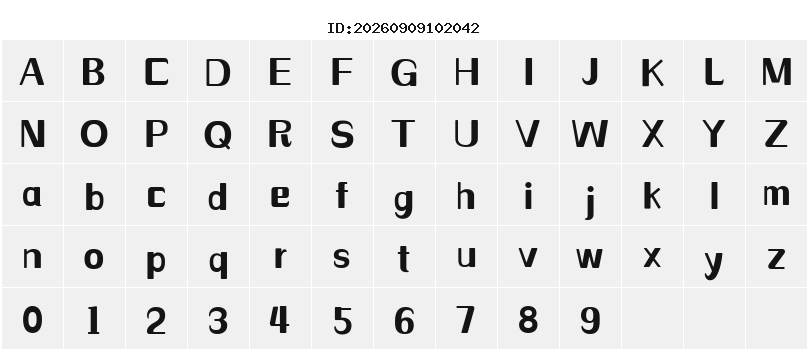
造字工房梦缘(非商用)常规体 Preview
• Font Name: 造字工房梦缘(非商用)常规体
• Designer: 丁道华
About 造字工房梦缘(非商用)常规体.ttf
造字工房梦缘(非商用)常规体.ttf is a modern, elegant sans-serif font designed for ultimate readability and visual harmony. Perfect for branding, headlines, web design, and print materials.